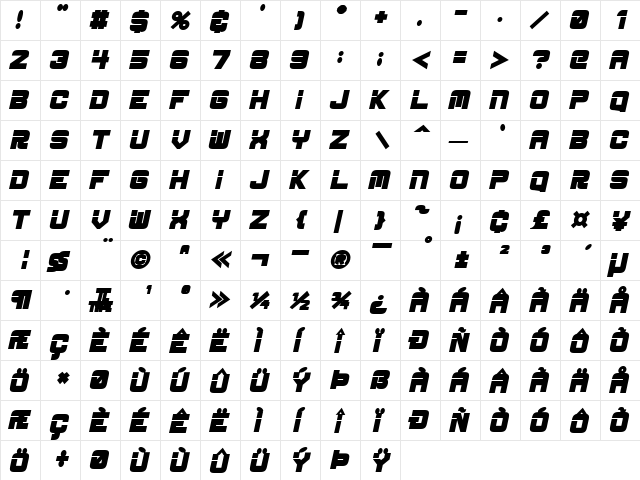
ESP_Bold_Italic Regular Font Preview
Design Context for ESP_Bold_Italic Typeface
ESP_Bold_Italic takes a measured approach to typography — its balanced proportions and neutral character make it a reliable workhorse for both digital and print work. Its italic angle brings a sense of urgency and motion to the letterforms. The heavy weight commands attention and anchors typographic hierarchies.
Pro Tip: Try ESP_Bold_Italic for annotation and caption copy alongside an upright companion — the contrast in angle creates a dynamic but ordered typographic system.